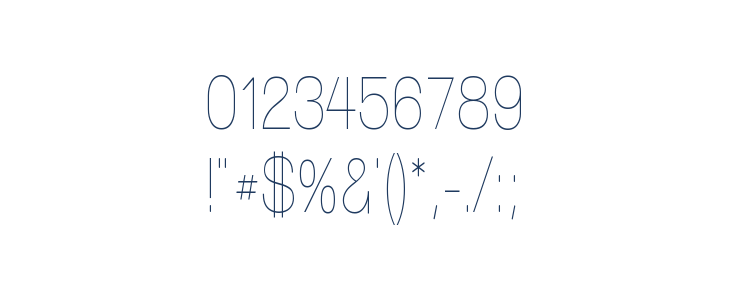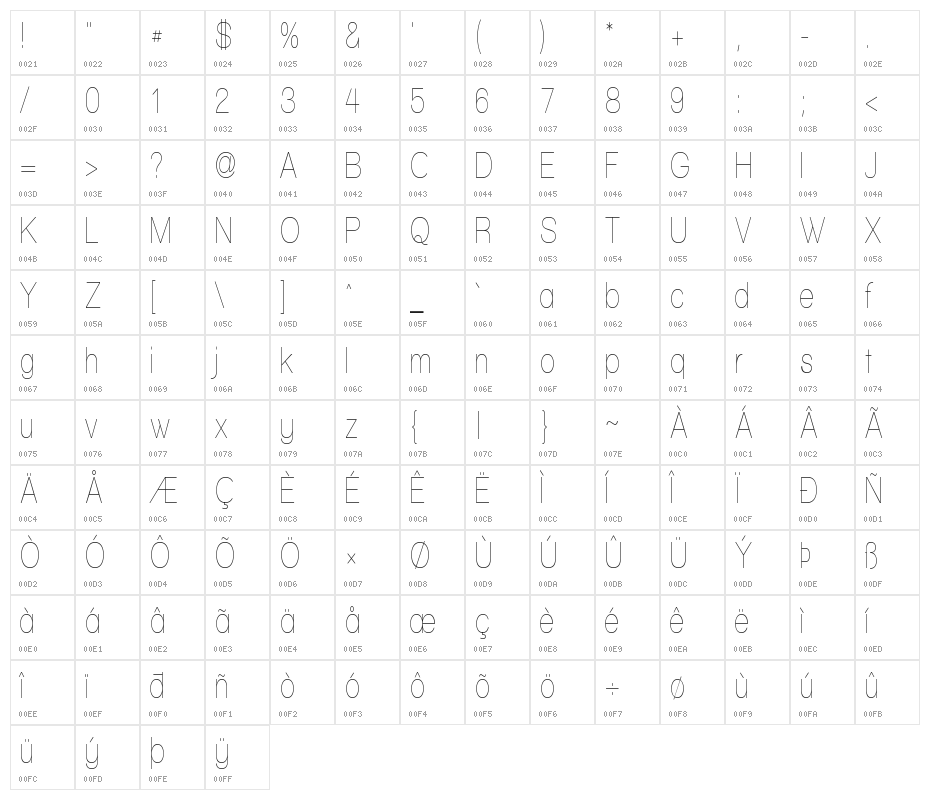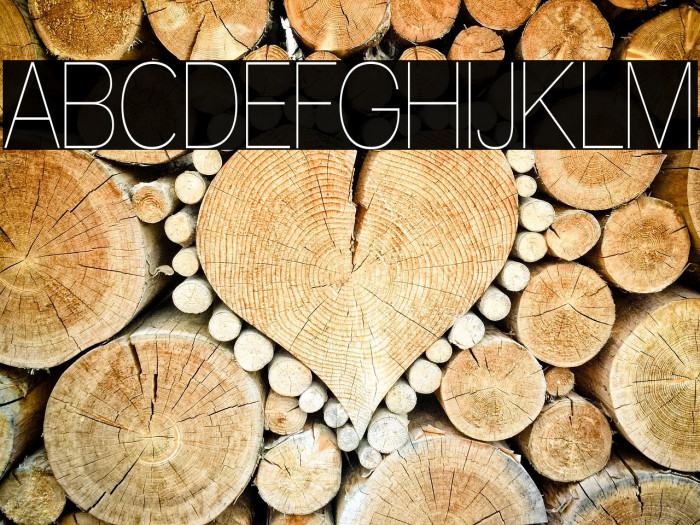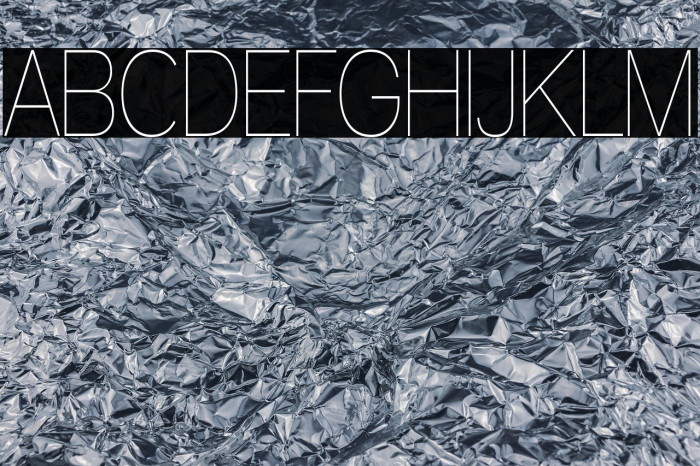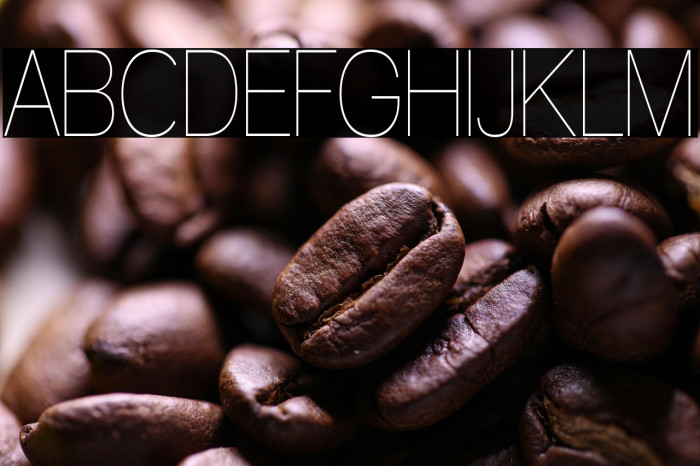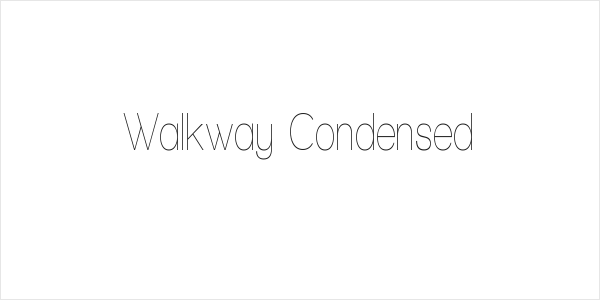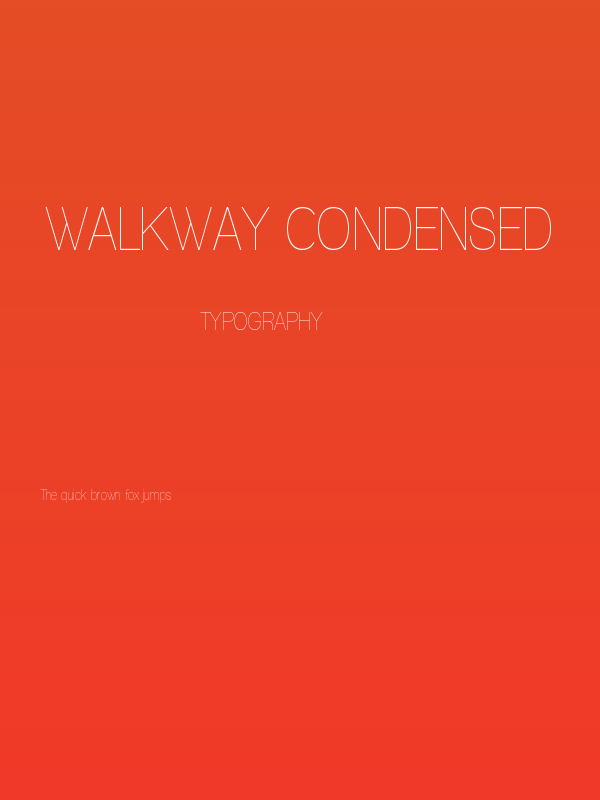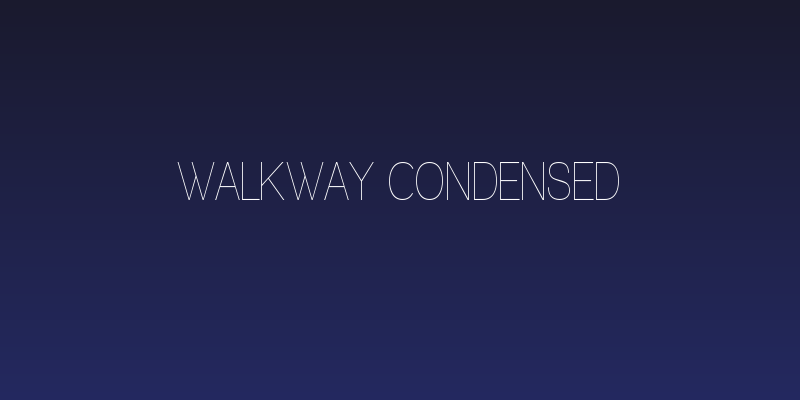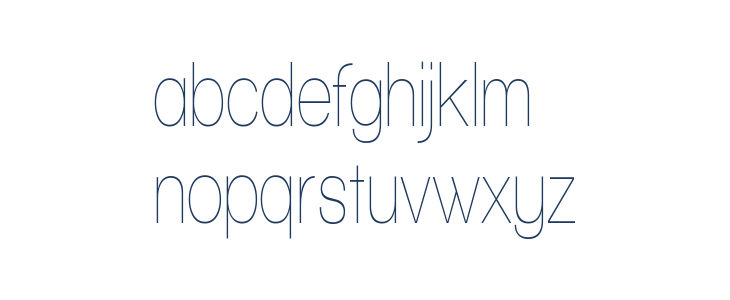
Walkway Condensed Font
Walkway Condensed Description
This font features a sleek, modern design with a condensed structure, making it ideal for space-saving applications. The characters are crafted with clean, straight lines and minimal curves, providing a contemporary and professional appearance. The uppercase and lowercase letters maintain a consistent height, contributing to a uniform look across text. The numerals are clear and easily distinguishable, while the special characters are designed to complement the overall style. This font's simplicity and elegance make it suitable for a variety of design projects.
| Proposed Projects | Ideal for branding, editorial design, and digital interfaces where space is limited. |